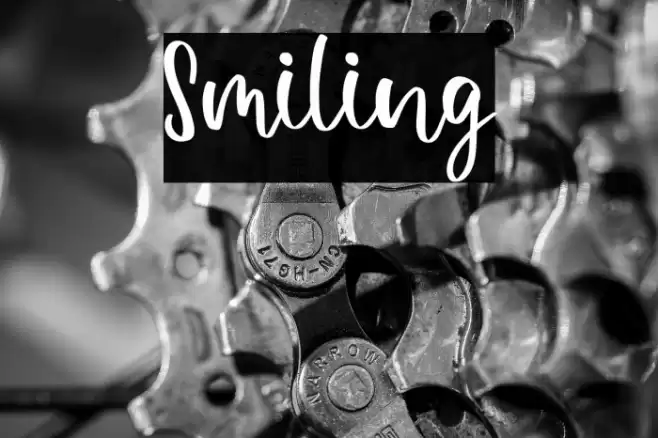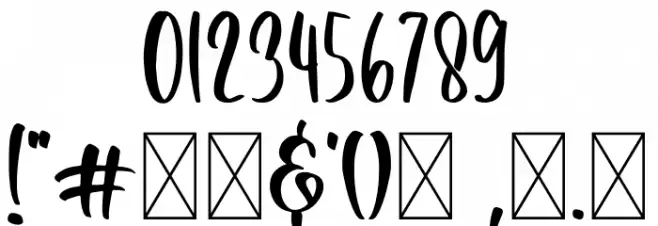
Smiling Font
Smiling Description
This font features a playful and energetic handwritten style, characterized by its flowing and connected letterforms. The uppercase letters are bold and dynamic, with a slight slant that adds to the casual and informal feel. The lowercase letters maintain a consistent rhythm, with loops and curves that enhance the handwritten aesthetic. The numbers are well-integrated into the style, maintaining the same playful and lively quality. Special characters are creatively designed, fitting seamlessly with the overall look. This font exudes a sense of fun and spontaneity, making it ideal for projects that require a personal touch.
A playful, handwritten font with bold, flowing letterforms and a casual style from Regular fonts.
- Proposed Projects: Ideal for greeting cards, invitations, personal branding, and social media graphics.
- Use Case: Logos, Headlines, Informal Text